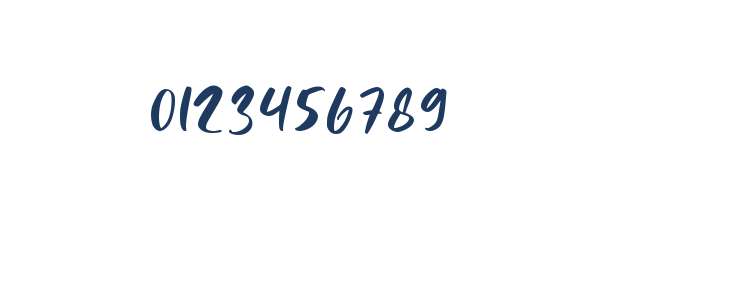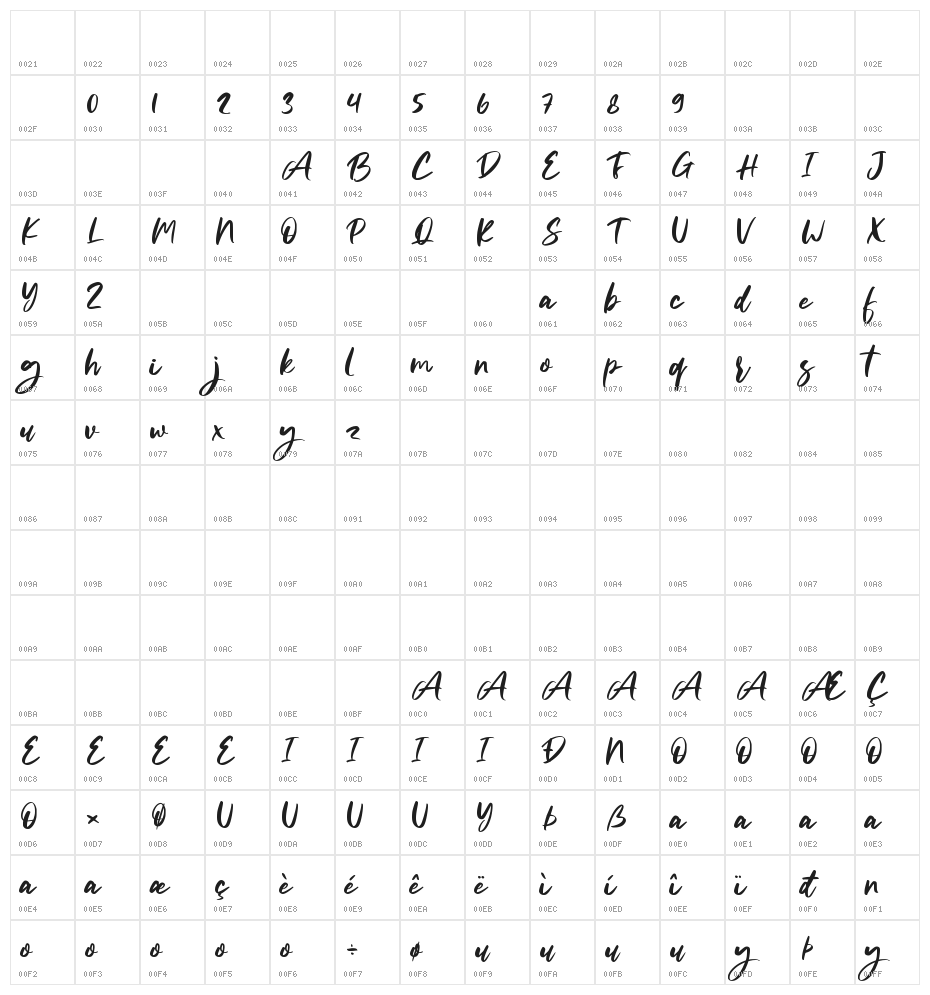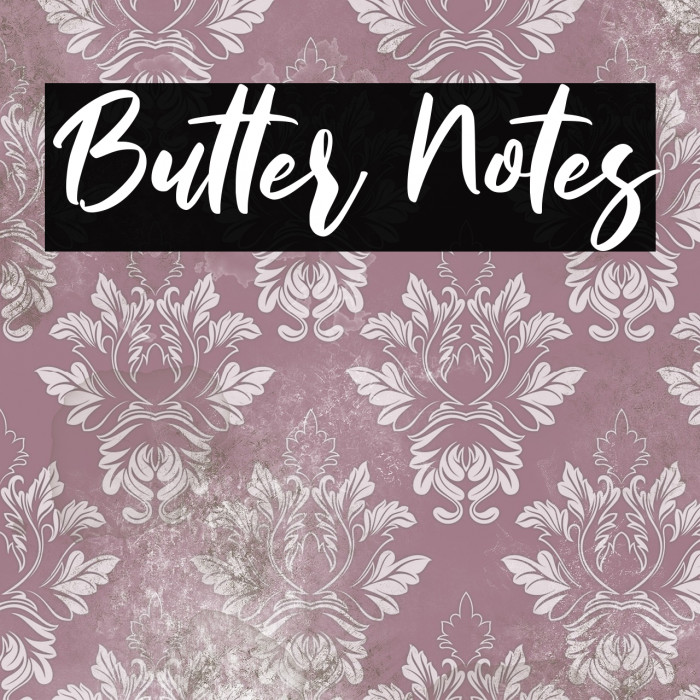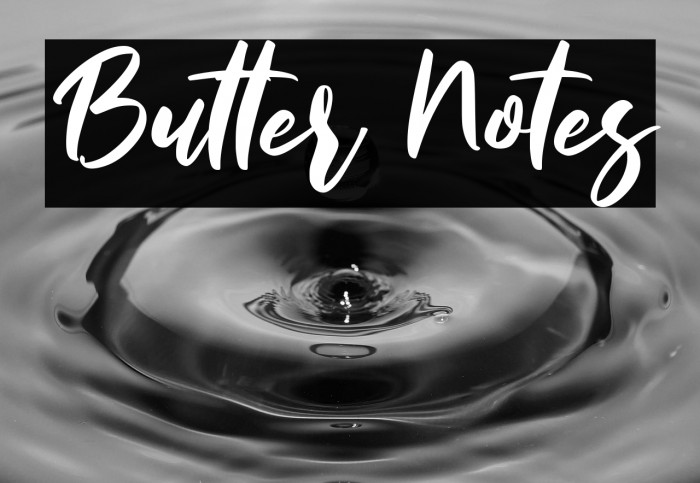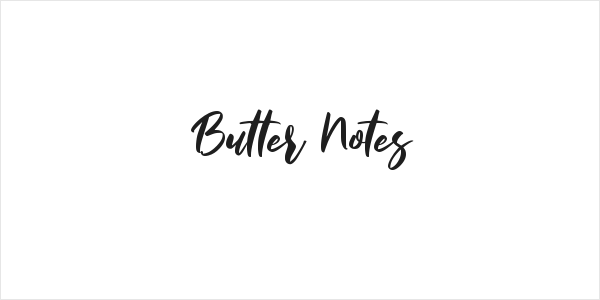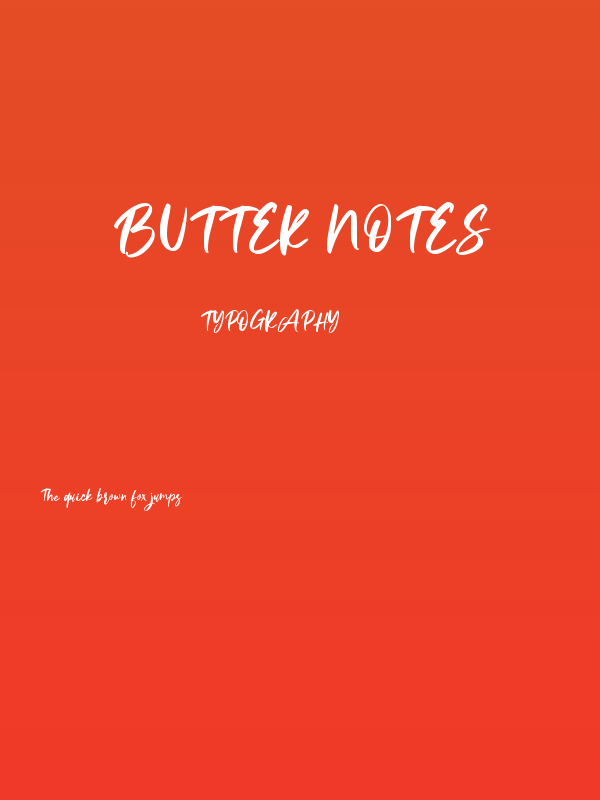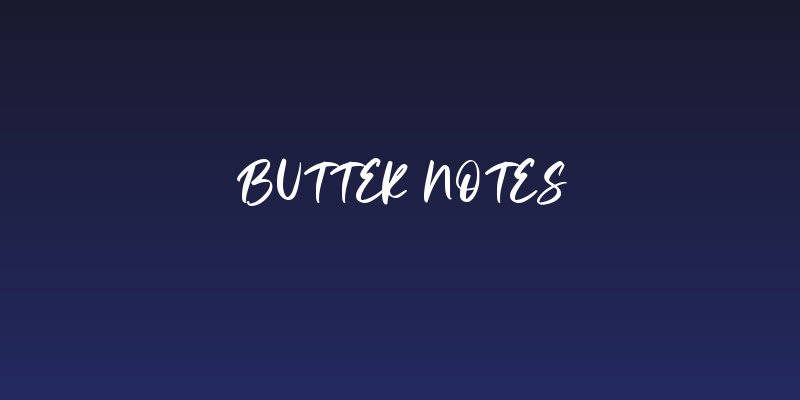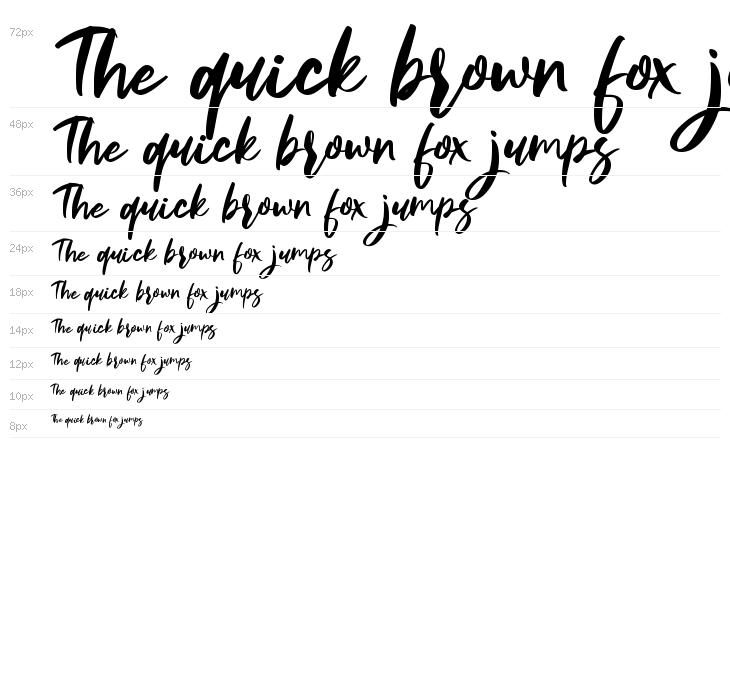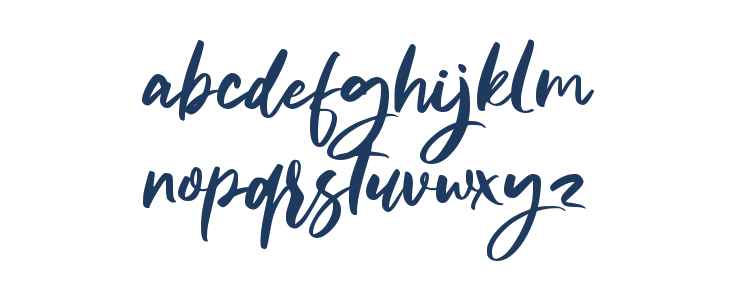
Butter Notes Font
Butter Notes Description
This font features a bold, expressive script style with a handwritten feel. The letters are fluid and dynamic, with a slight slant that adds to the casual and artistic appearance. The strokes are thick and consistent, providing a strong visual impact. The uppercase letters are slightly larger and more pronounced, while the lowercase letters maintain a cohesive flow. Numbers and special characters are designed to match the overall aesthetic, ensuring uniformity across different uses. The font's playful yet sophisticated style makes it versatile for various creative projects.
| Use Case | Logos, Headlines, Invitations |
| Proposed Projects | Ideal for branding, invitations, greeting cards, and social media graphics. |